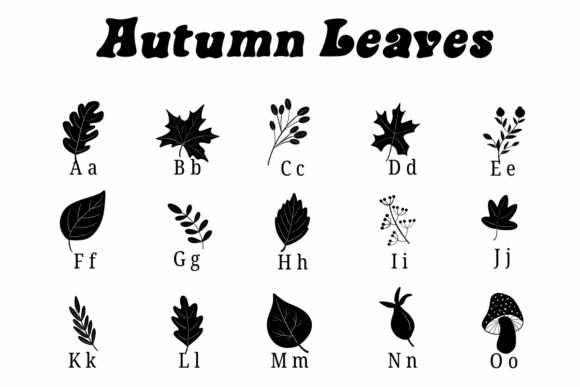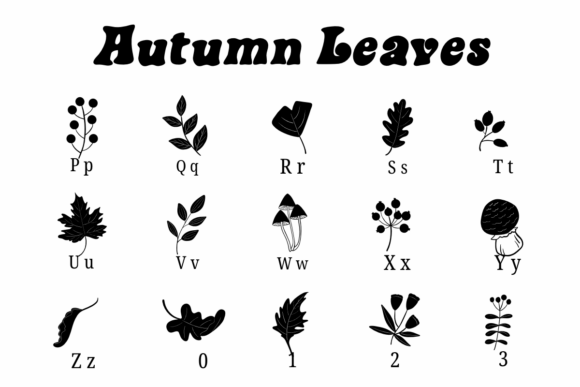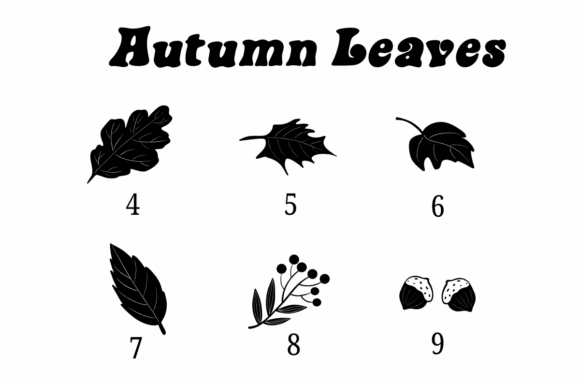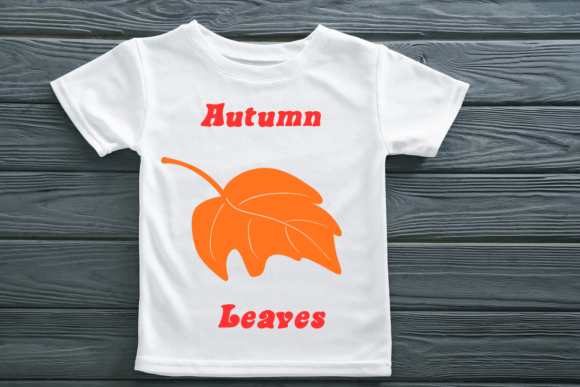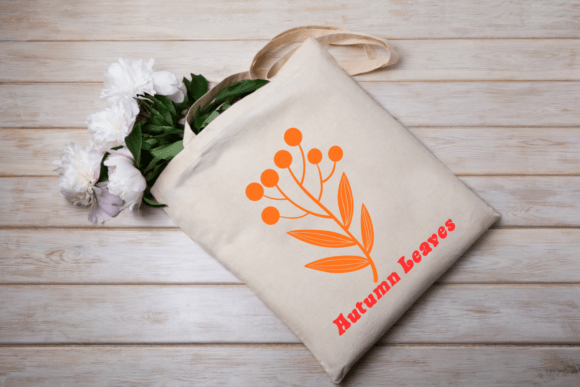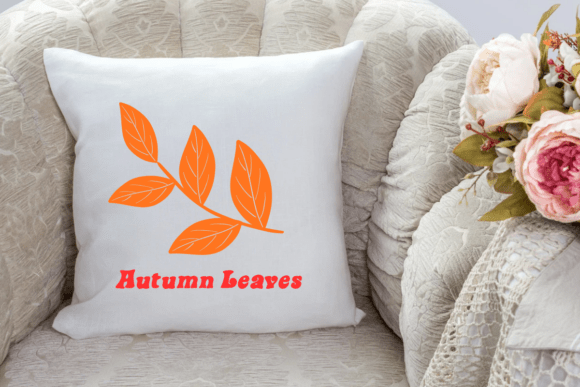
The Magic of Autumn Leaves Font: A Designer’s Delight
As a designer, I’ve had my fair share of projects that required a specific theme or aesthetic. One of my most memorable experiences was working on a fall-themed invitation for a client’s wedding. The goal was to capture the warmth and coziness of the season, but I was struggling to find the right font to convey that feeling. That’s when I stumbled upon the Autumn Leaves Dingbats Font, and it completely transformed my design. In this article, I’ll share my experience with this charming font, its features, and how to make the most of it in your designs.
What I Love About Autumn Leaves Font
The Autumn Leaves Dingbats Font is a playful and seasonal dingbat typeface that has won my heart with its charming illustrations. Here are some of the things I love about it:
- ✨ A wide variety of decorative leaf shapes, berries, and even mushrooms that evoke the spirit of autumn.
- ✅ Clean outlines that ensure easy scaling and compatibility, whether you’re working on digital projects or print designs.
- 🌿 A versatile font that’s perfect for a range of applications, from seasonal invitations and greeting cards to planners, stickers, packaging, craft projects, scrapbooking, and Cricut/SVG creations.
While I adore the Autumn Leaves Font, there are a few quirks to keep in mind:
- 🤔 The font is designed specifically for fall-themed designs, so it might not be the best choice for projects that require a more neutral or versatile font.
- ⚠️ As with any dingbat font, you’ll need to explore the glyphs and OpenType features to get the most out of it.
The Story Behind Autumn Leaves Font
The Autumn Leaves Font was designed by a creative team that wanted to capture the essence of the fall season. Inspired by the vibrant colors and natural beauty of autumn, they crafted a font that’s both playful and sophisticated. The result is a unique and charming typeface that’s perfect for designers, crafters, and creative hobbyists.